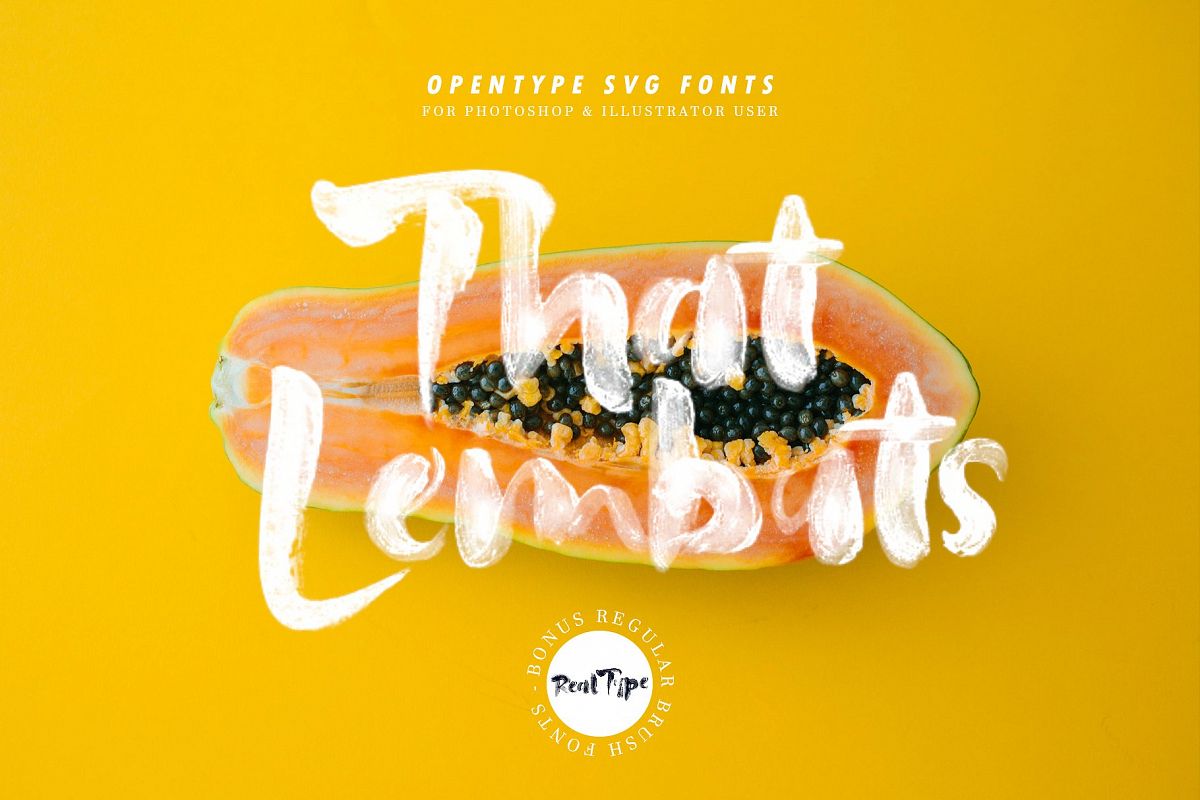
That Lembuts SVG & Brush Fonts
INTRODUCING THAT LEMBUTS SVG & BRUSH OPENTYPE FONTS!
That Lembuts is an hand painted font pack containing two Opentype fonts, SVG & Regular Brush fonts.
These Opentype SVG fonts keep all of the transparency and texture of the original painted letters. That
Lembuts will make your design projects burst with character and charm, and will make your design projects a
look realistic. Each letter and symbol was hand painted.
That Lembuts - Regular Version - This font contains of glyphs and language support. All the symbols and
punctuation glyphs are there as well.